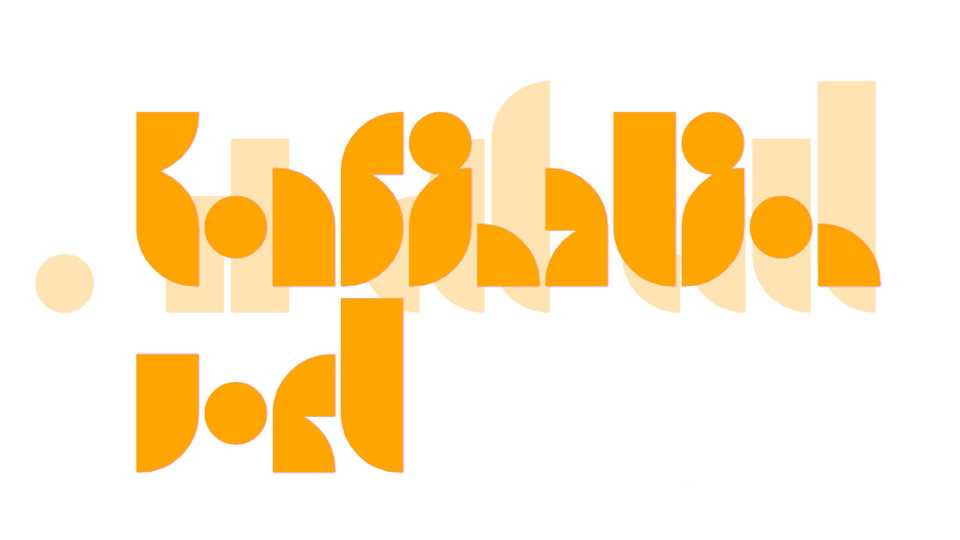
Kombination Wort Font › Fontesk – Download Grátis
Download Kombination Wort font, a geometric display typeface, an attempt to make words out of the 10 simple shapes of Josef Albers’ KombinationSchrift.